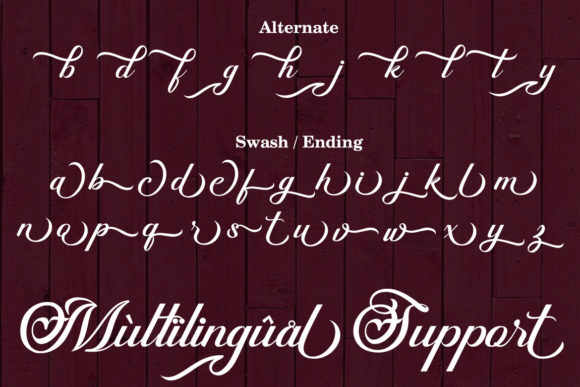
Feeling Lovely Font
db-ku.com - Script & Handwritten -- The Feeling Lovely is an elegant calligraphy font. It features a varying baseline, has a modern feel, and looks stunning.